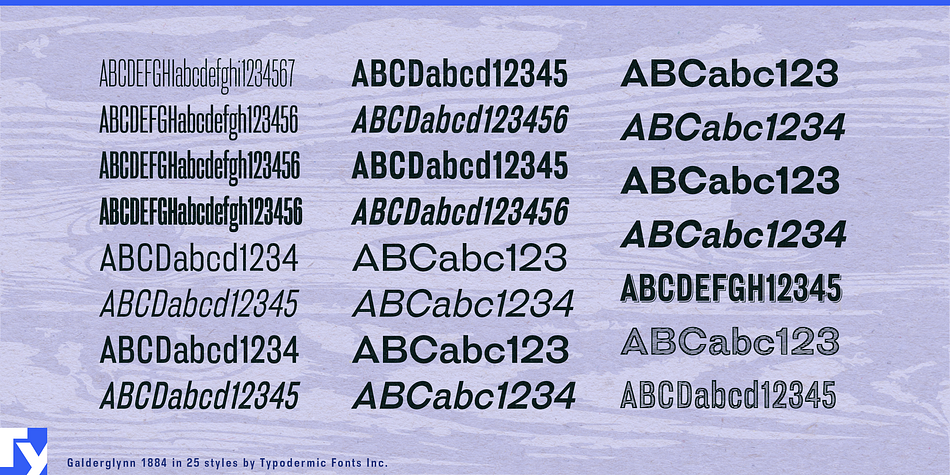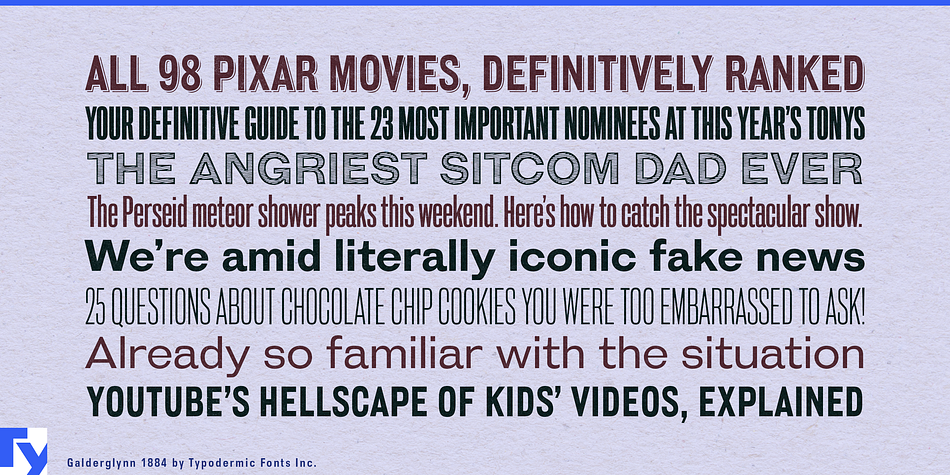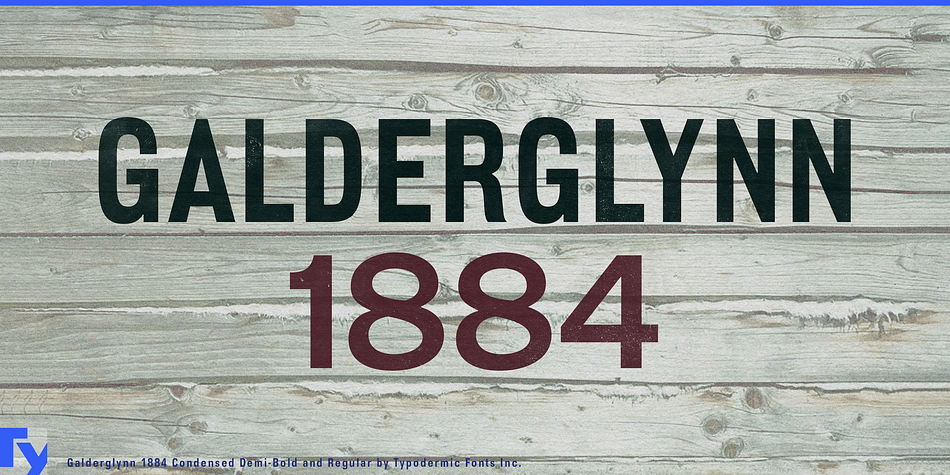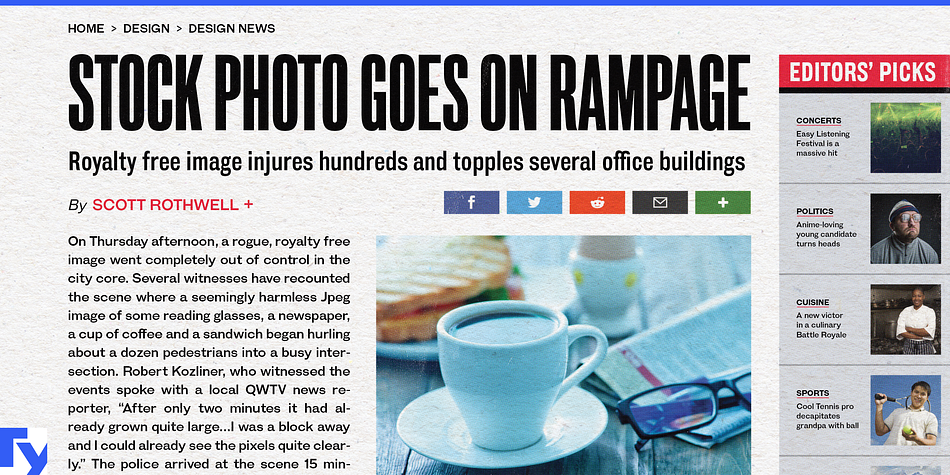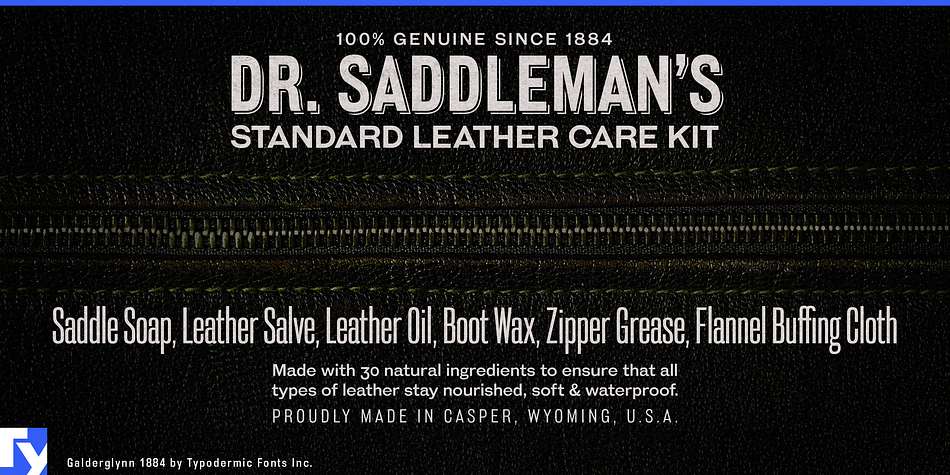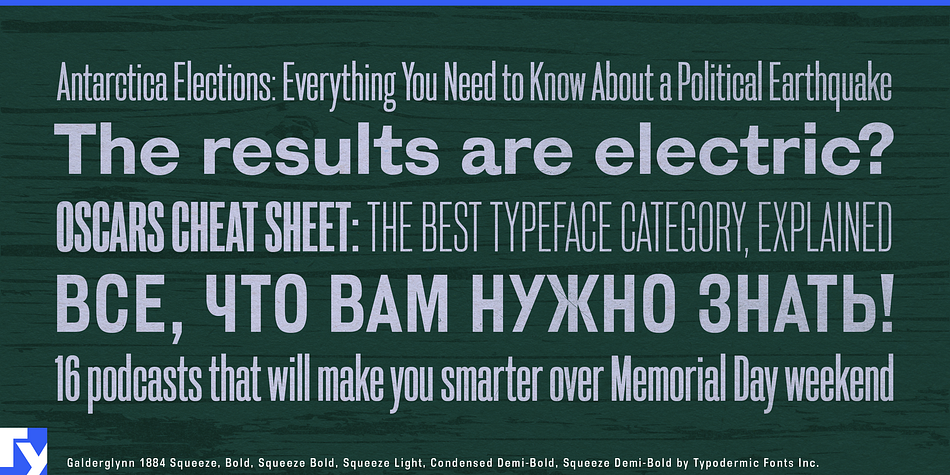
Designed by Ray Larabie, Galderglynn 1884 is a display sans and sans serif font family. This typeface has twenty-five styles and was published by Typodermic Fonts Inc.
Galderglynn 1884 is a nineteenth-century style sans-serif typeface. This is a refined expansion of another typeface called Galderglynn Esquire. Galderglynn Esquire was an intentionally rustic looking typeface based on a mixture or several pre-twentieth century grotesques employing deliberately unrefined weight and spacing. Galderglynn 1884 has at its base that same pastoral design but polished into a practical workhorse font family. The condensed fonts are slightly squared off with careful effort employed to keep the style squarely in the nineteenth-century—more like a typical condensed newspaper headline type than a twentieth-century superellipitcal like Eurostile or Univers. The extra-condensed “squeeze” fonts are completely flat-sided, not unlike old wooden poster types or extremely tight metal newspaper headline fonts.
If your application supports OpenType features, you can access tabular and lowercase (old-style) numerals. A Cyrillic alphabet is included as well as accents for common Latin languages. There are three special effect fonts available: all-capitals shadow and engraved regular and condensed styles.